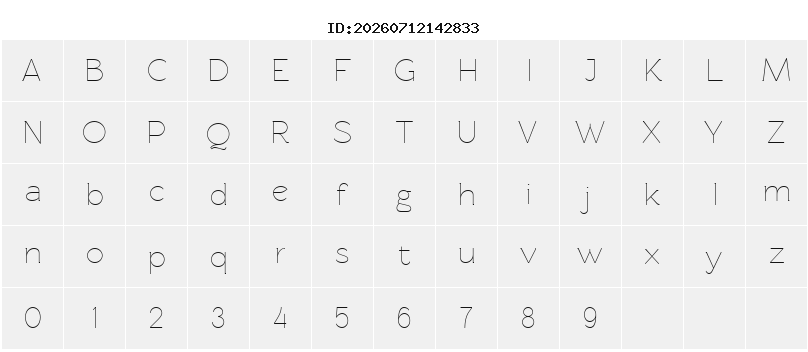
Rawengulk Preview
• Font Name: Rawengulk
• Font Style: Light
• Full Font Name: Rawengulk Light
• PostScript Name: RawengulkLight
About Rawengulk.ttf
Rawengulk.ttf is a modern, elegant sans-serif font designed for ultimate readability and visual harmony. Perfect for branding, headlines, web design, and print materials.